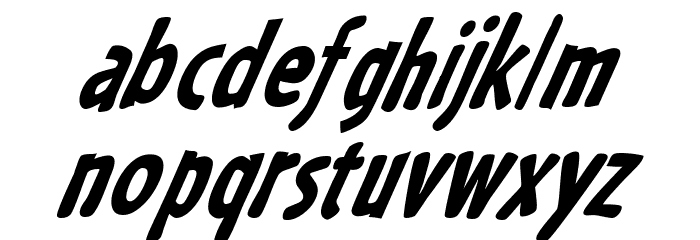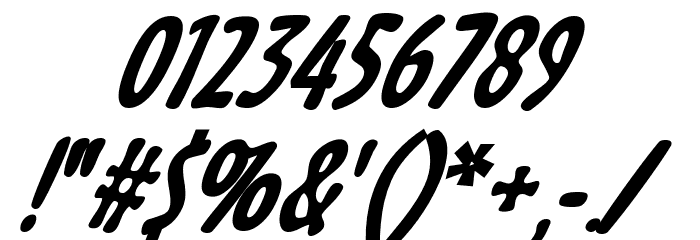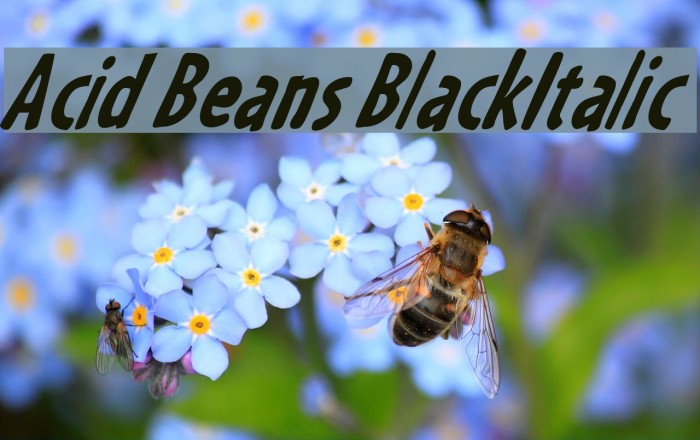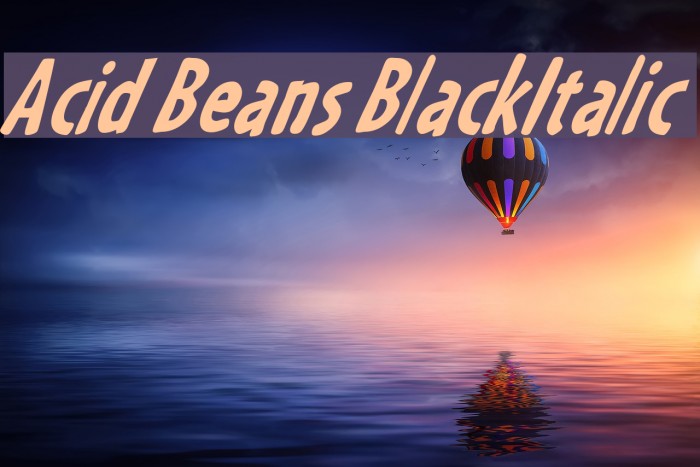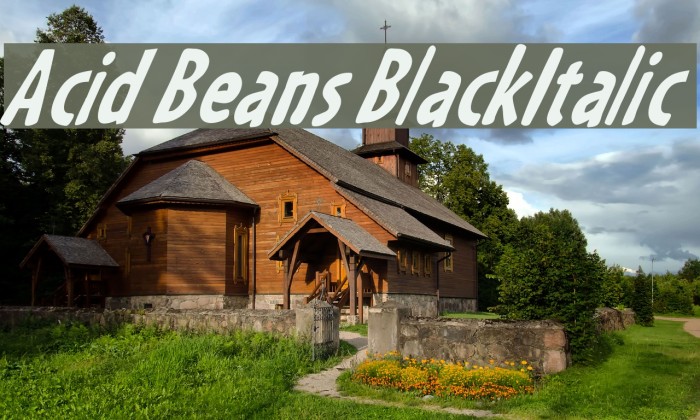
Acid Beans BlackItalic Font
This font features a bold and dynamic style with a pronounced italic slant, giving it a sense of movement and energy. The characters are thick and robust, with a playful and informal appearance. The strokes are smooth and rounded, contributing to a friendly and approachable feel. The uppercase and lowercase letters maintain a consistent style, while the numerals and special characters are equally bold and expressive. This font is ideal for projects that require a strong visual impact and a touch of personality.
A bold, italic font with a playful and dynamic style.
- Font: Acid Beans BlackItalic
- Weight: BlackItalic
- Proposed Projects: Perfect for branding, posters, headlines, and any design needing a bold, energetic touch.